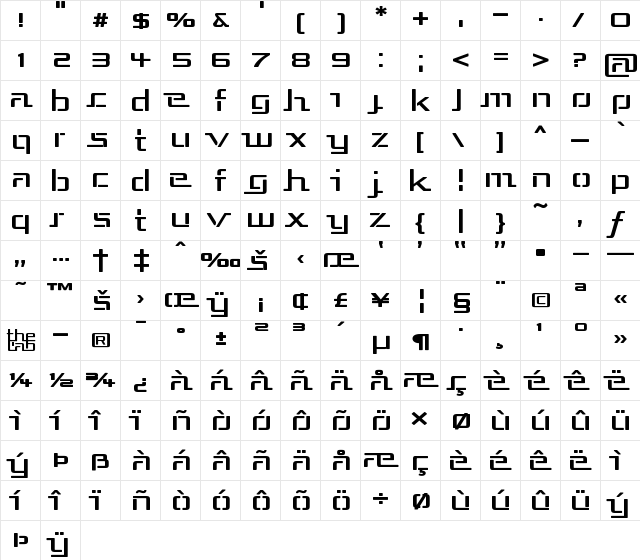
Republika III Exp Regular
| Designer | Apostrophe |
Design Context for Republika III Exp Typeface
Republika III Exp is a composed and adaptable typeface that performs quietly and consistently across a wide range of design contexts.